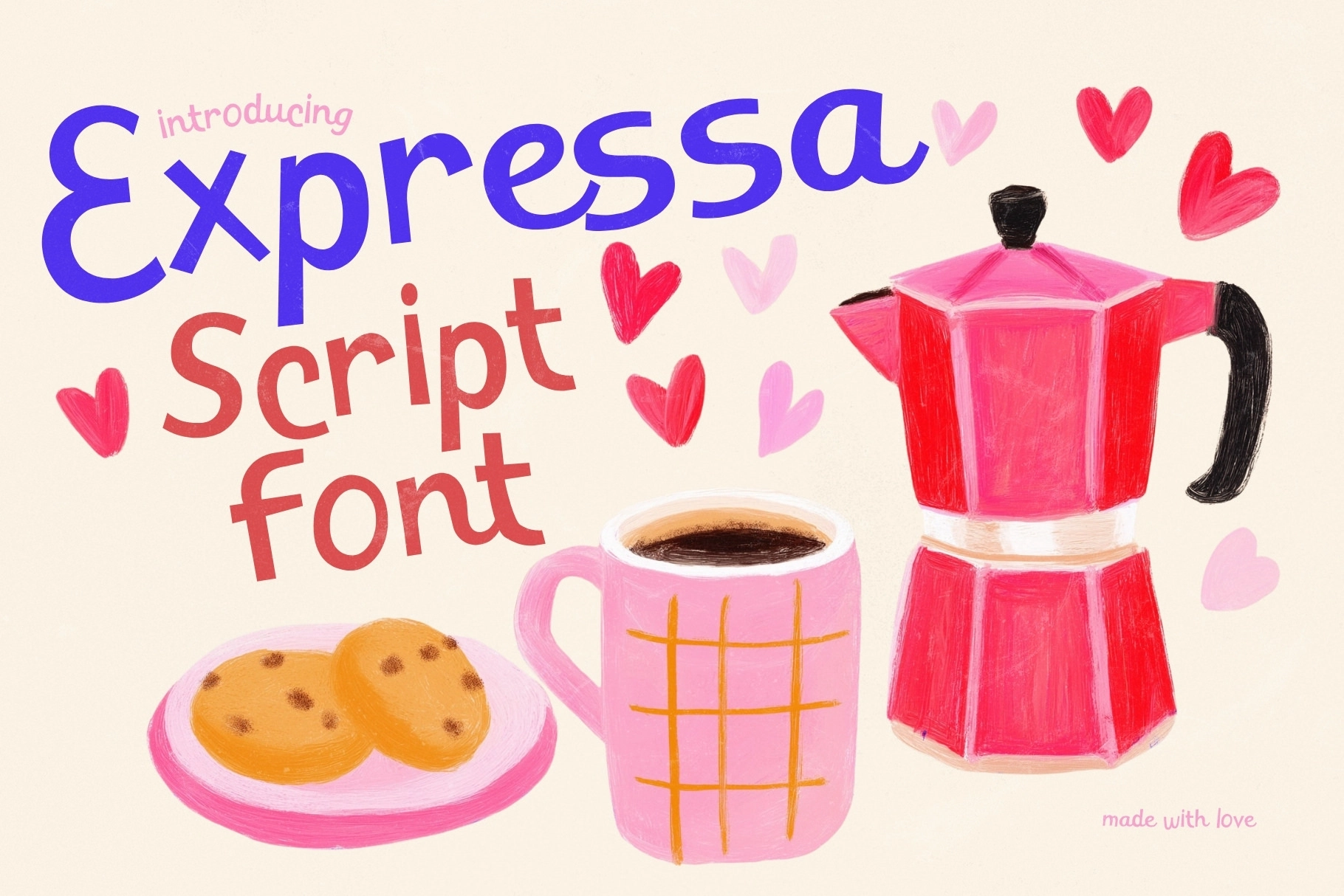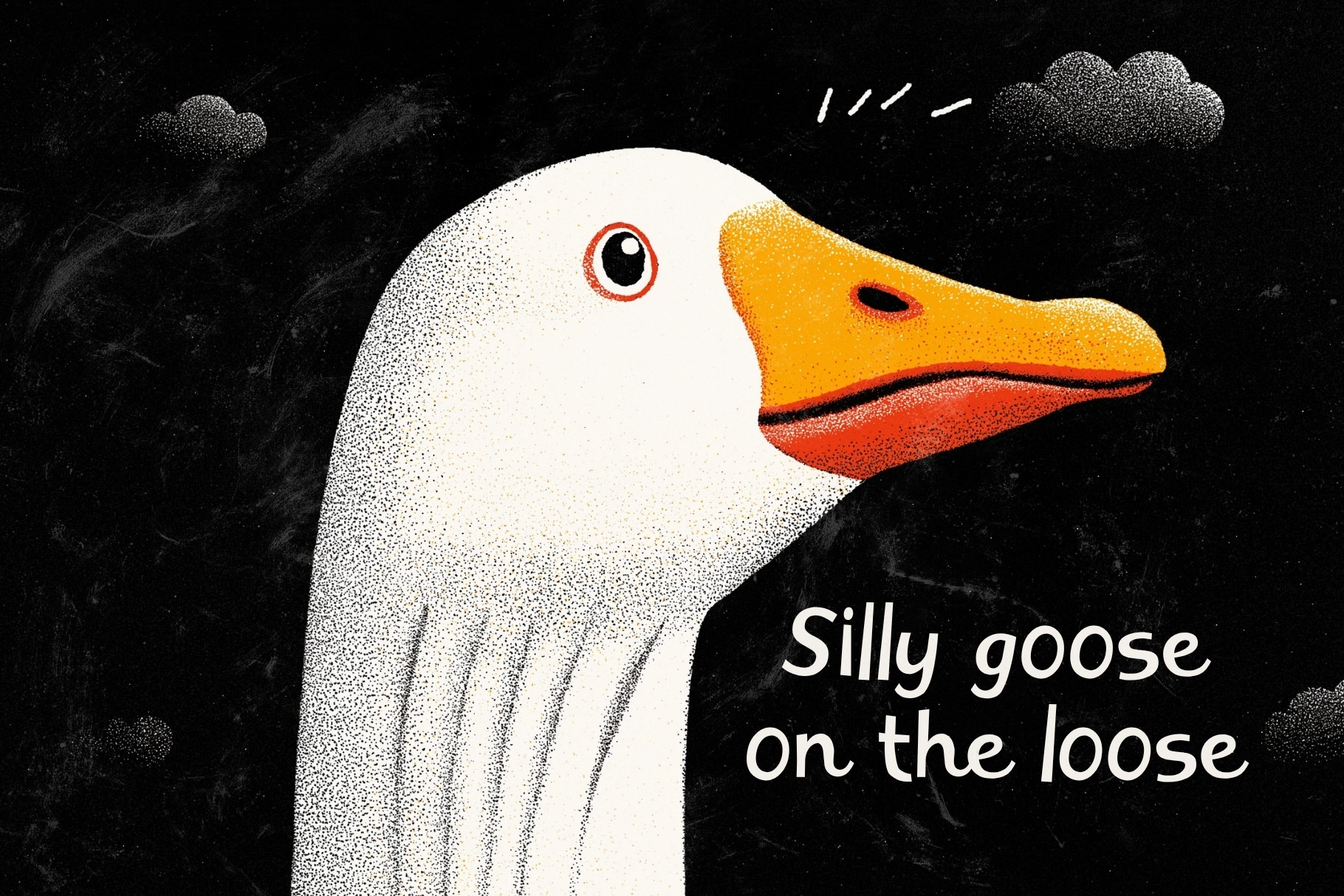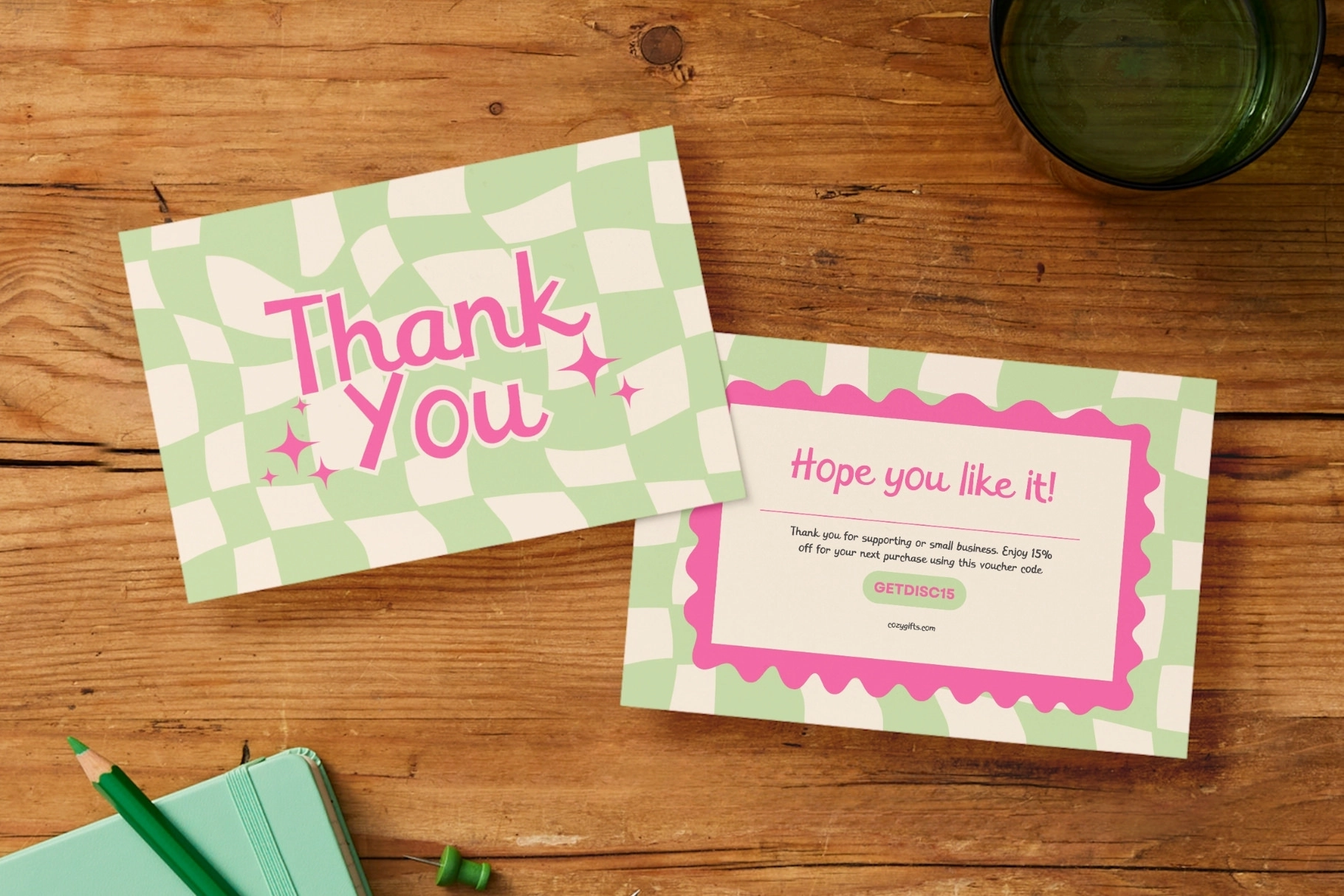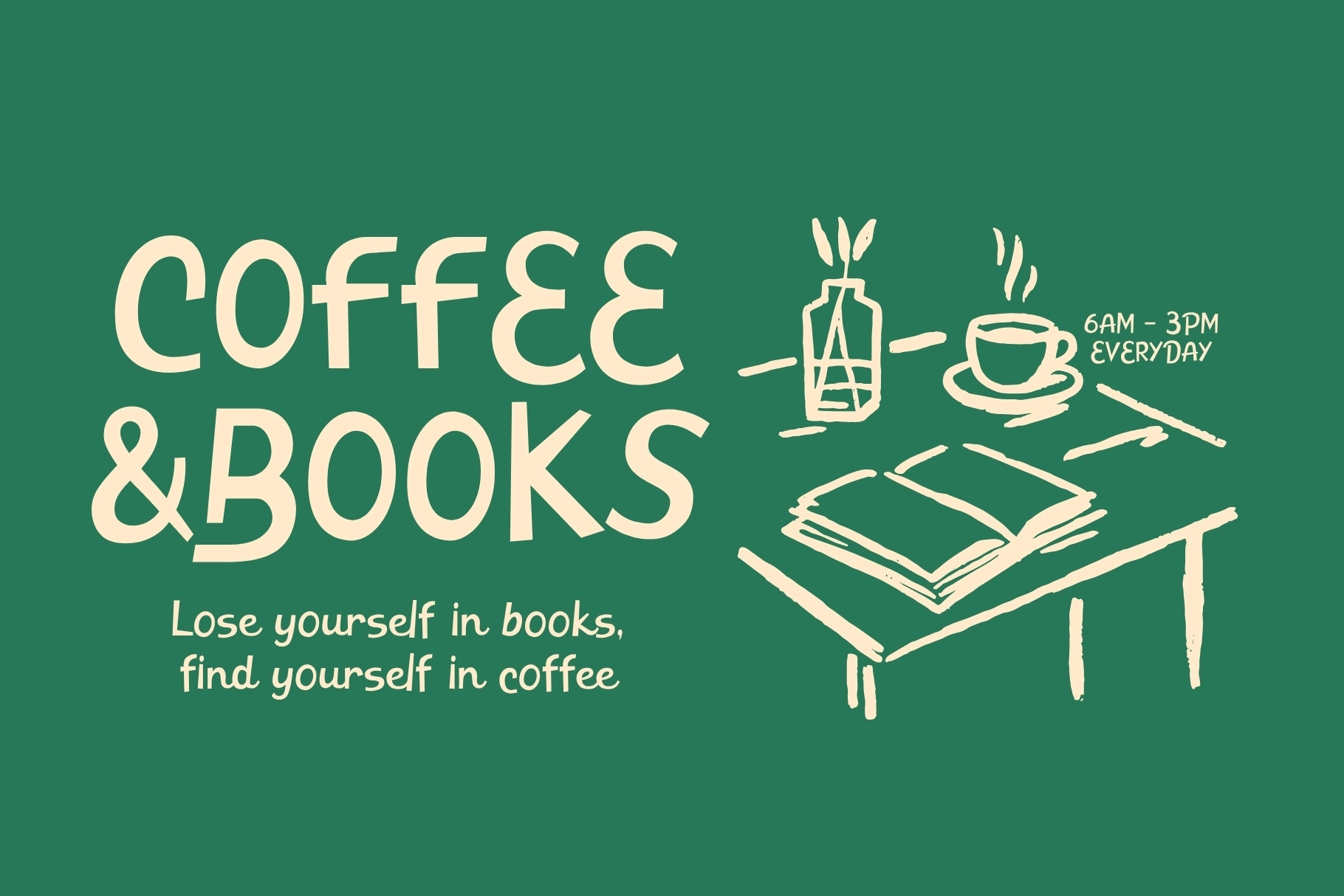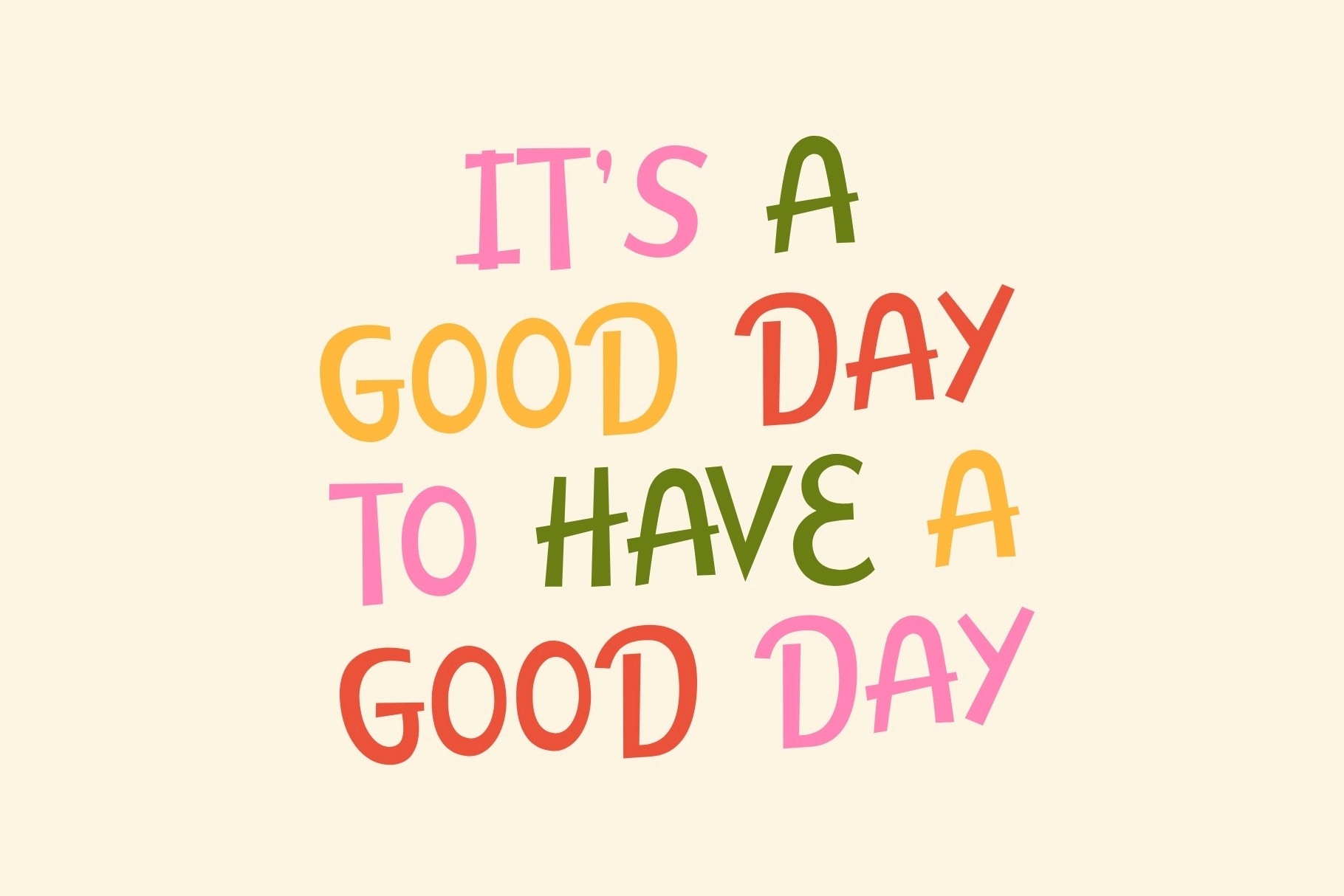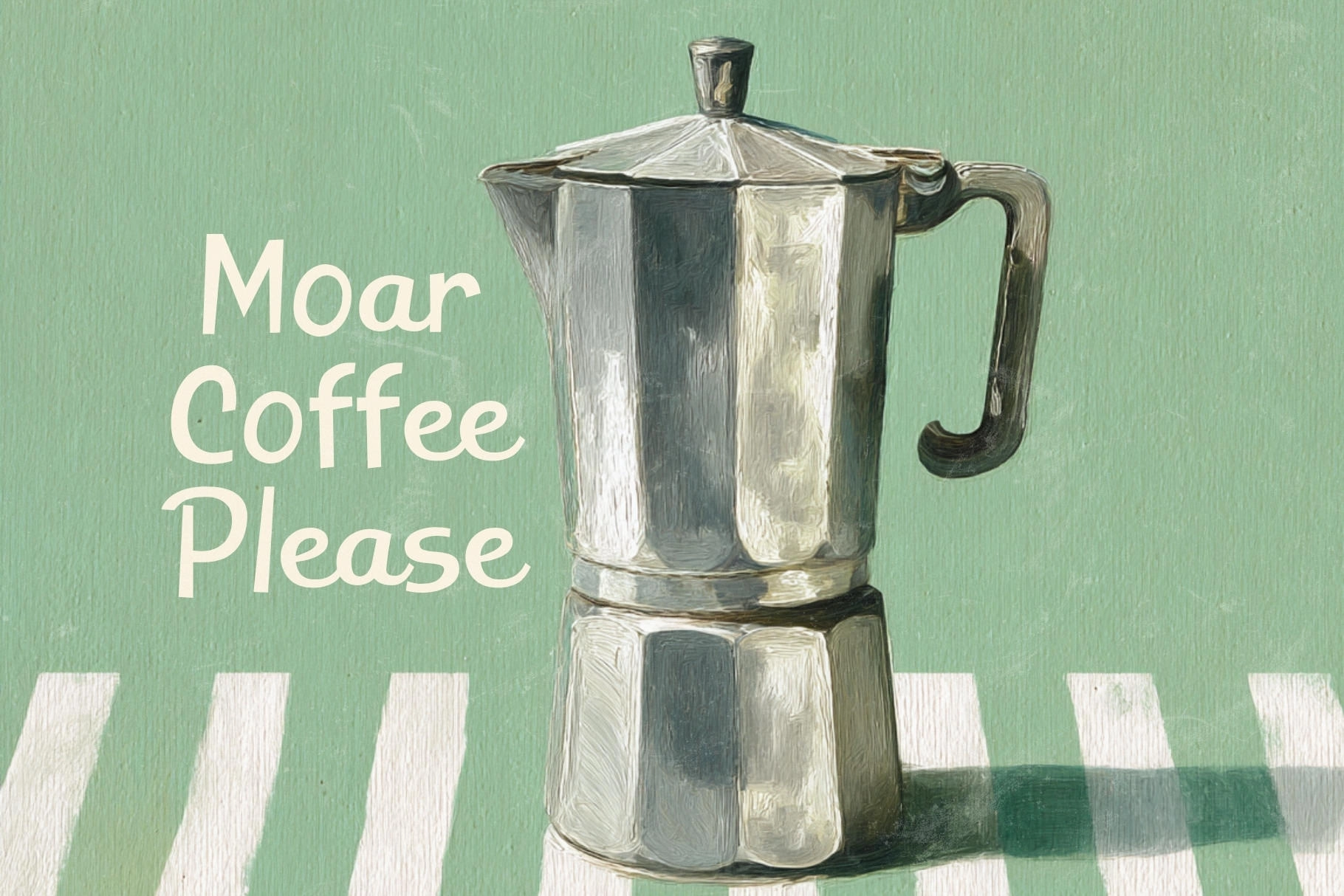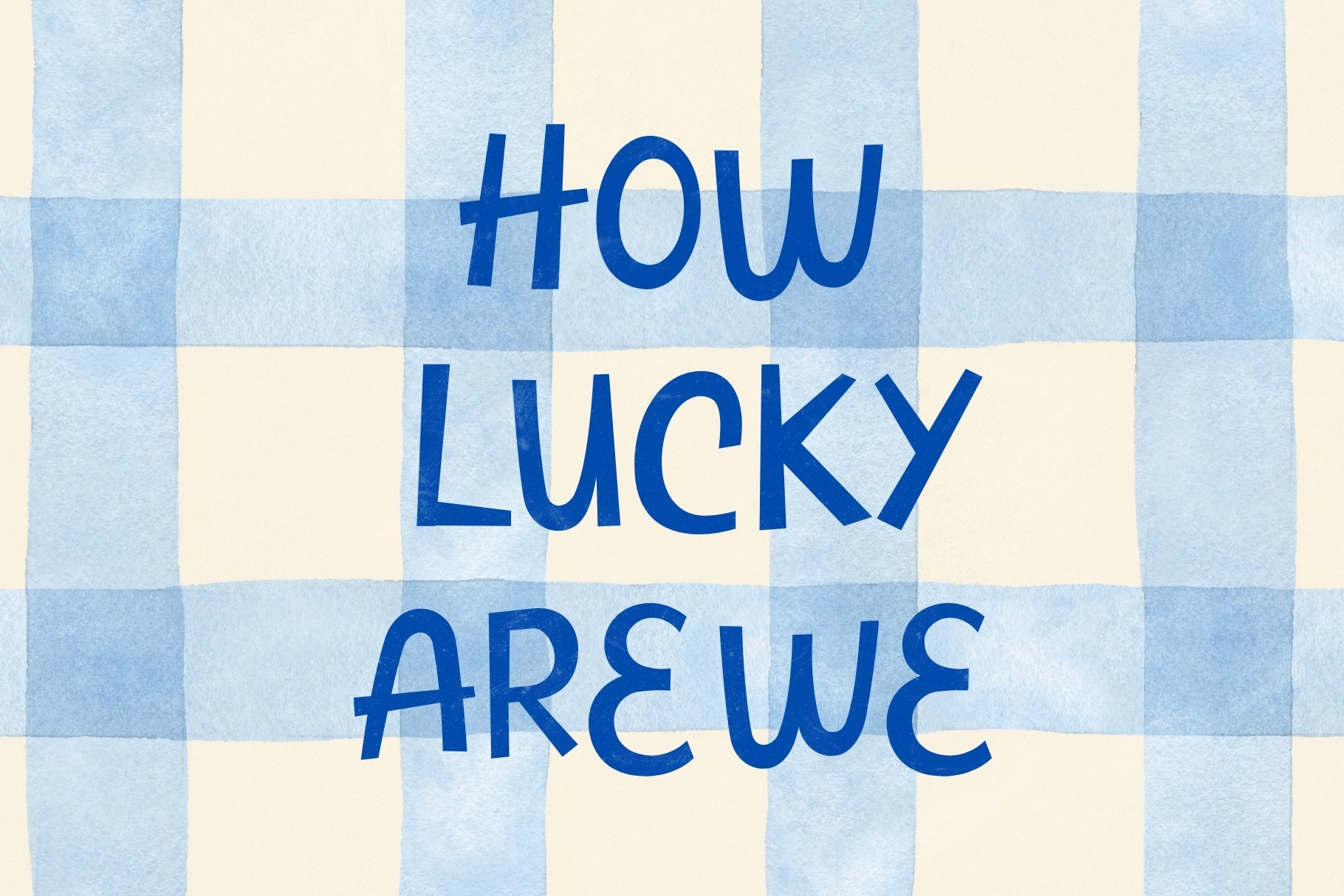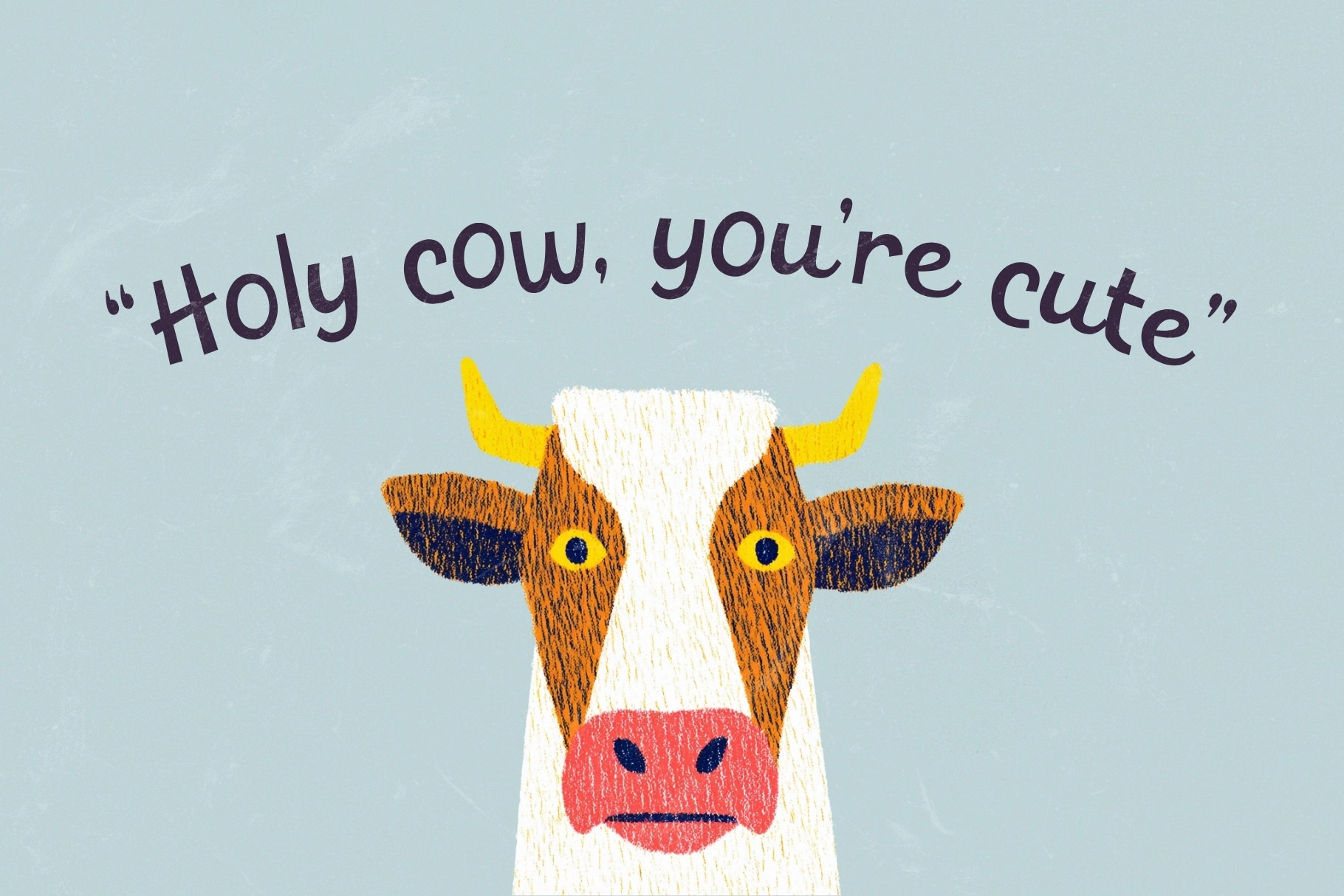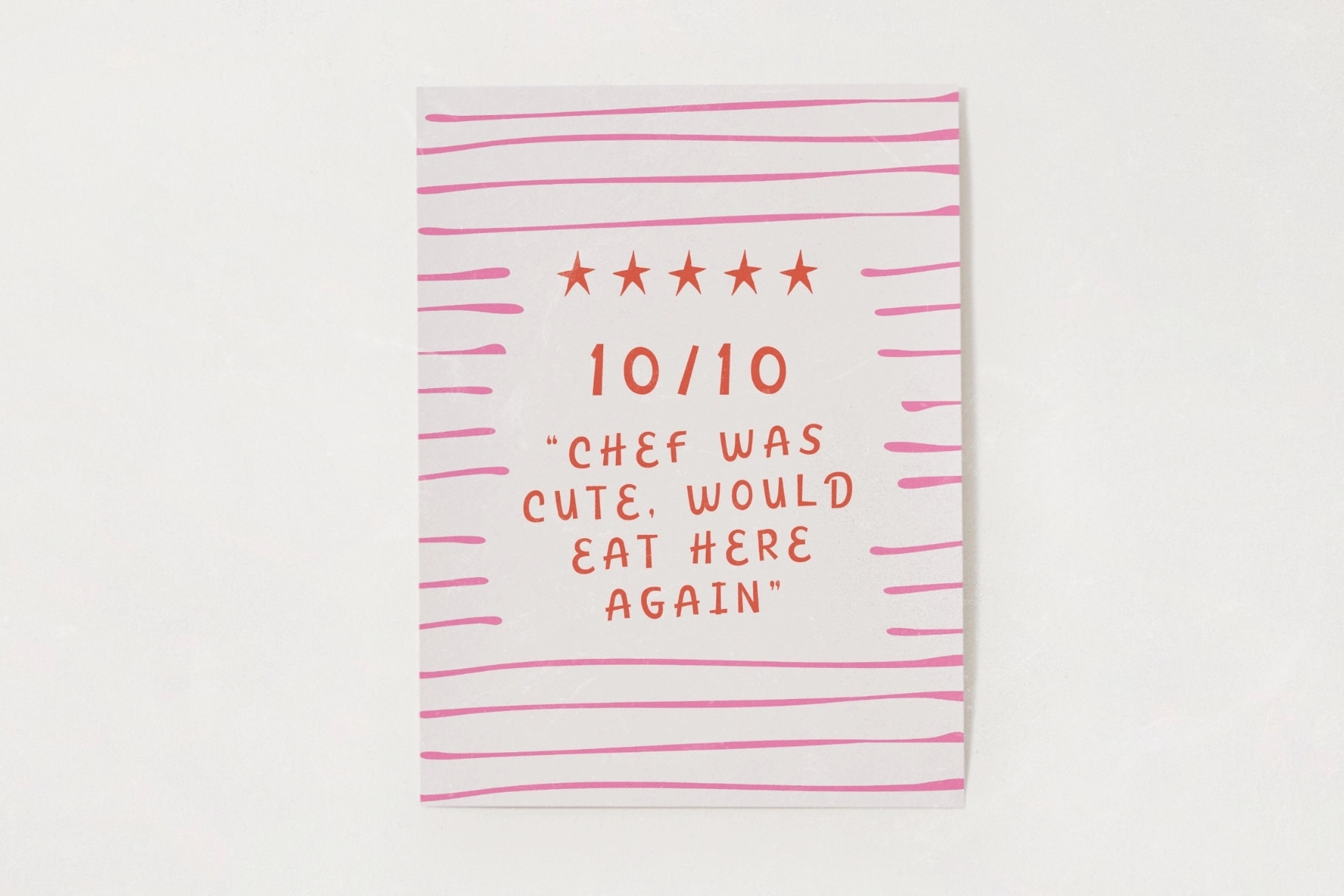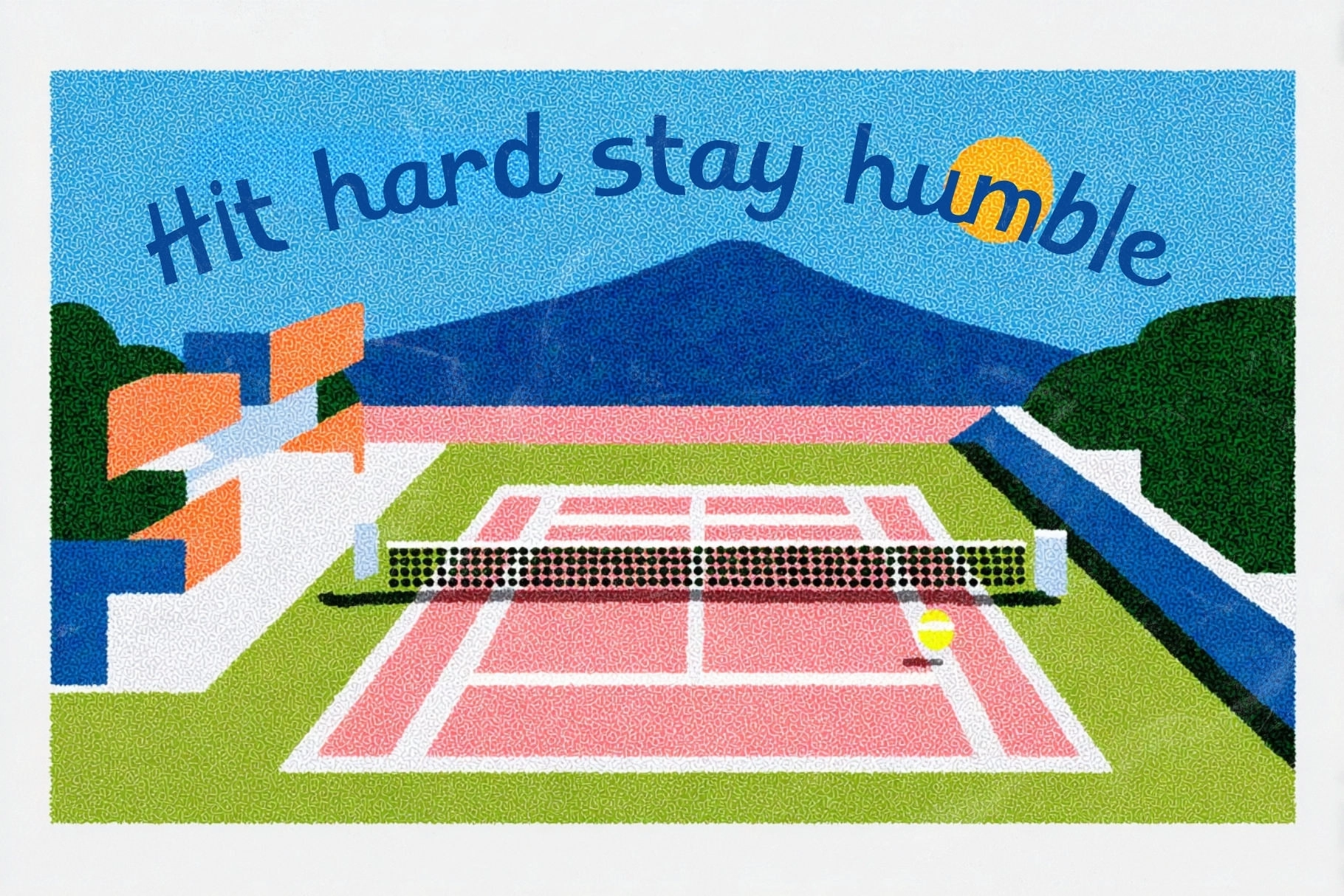
Expressa - Whimsical Script Font
Expressa
This script typeface has a chunky handwritten look with soft curves, uneven letterforms, and a cheerful rhythm. Its bold shape gives words a clear presence, while the quirky details keep the mood casual, sweet, and a little mischievous.
Expressa is a good fit for café branding, bakery packaging, cute logos, greeting cards, stickers, social media quotes, kids’ projects, product labels, menu boards, posters, invitations, and more. It works especially well for designs that need warmth, personality, and friendly lettering without losing readability.
- Playful whimsical script style
- Uppercase and lowercase letters
- Numbers and punctuation